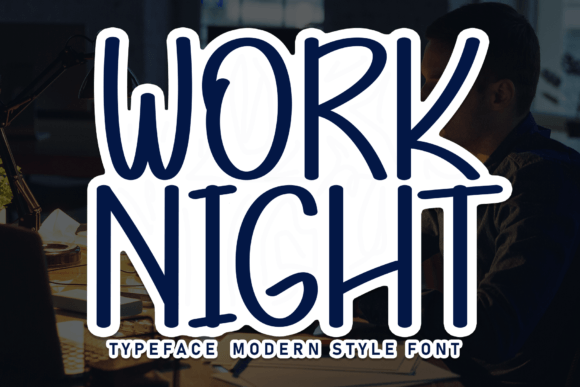
Introducing Work Night Font - The Delightful Script Font That Inspires Creativity
In a world saturated with digital noise, your designs need a touch of genuine charm to stand out. Say hello to Work Night Font, a captivating script font that exudes warmth, playfulness, and a hint of nostalgia. With its carefully crafted curves and playful strokes, Work Night Font adds a personal touch to your creative projects, making them irresistible to your audience.
This enchanting font is a masterpiece by Strongkeng Old, a renowned font designer known for creating fonts that resonate with users' hearts. Work Night Font is a testament to their artistry, embodying a unique blend of elegance and approachability. Whether you're a seasoned designer or just starting your creative journey, Work Night Font is the perfect companion for your projects, adding a touch of magic to every word.
Discover the Allure of Work Night Font:
• Handwritten Charm: Work Night Font captures the essence of handwritten notes, evoking a sense of authenticity and intimacy in your designs. Each letter dances across the page with a graceful flow, adding a human touch to your digital creations.
• Timeless Elegance: While inspired by classic calligraphy, Work Night Font has a modern twist that keeps it relevant and stylish. Its clean lines and contemporary aesthetic ensure that your designs remain visually appealing for years to come.
• Versatility Unbound: From whimsical wedding invitations to captivating social media posts, Work Night Font adapts seamlessly to a wide range of design projects. Its versatility makes it a must-have for designers who seek a font that can effortlessly elevate any concept.
• Emotional Connection: Work Night Font has an uncanny ability to forge an emotional connection with your audience. Its friendly and inviting nature draws readers in, creating a sense of warmth and familiarity. This emotional resonance makes your designs more impactful and memorable.
Unlock a World of Creative Possibilities with Work Night Font:
• Wedding Stationery: Transform your wedding invitations, save-the-dates, and menus into works of art with Work Night Font. Its romantic and elegant style adds a touch of timeless charm to your special day.
• Greeting Cards: Create heartfelt greeting cards that convey your genuine emotions. Work Night Font's playful personality shines through in birthday cards, thank-you notes, and holiday greetings, making each card a cherished keepsake.
• Branding and Logos: Give your brand a distinctive identity with Work Night Font. Its unique style adds a touch of sophistication and approachability to your logo, business cards, and marketing materials, helping your brand stand out from the crowd.
• Social Media Graphics: Captivate your social media audience with visually stunning graphics featuring Work Night Font. Its eye-catching style is perfect for quotes, announcements, and promotional posts, grabbing attention and driving engagement.
• Packaging Design: Elevate your product packaging with Work Night Font. Its whimsical charm adds a delightful touch to labels, boxes, and tags, making your products irresistible to customers.